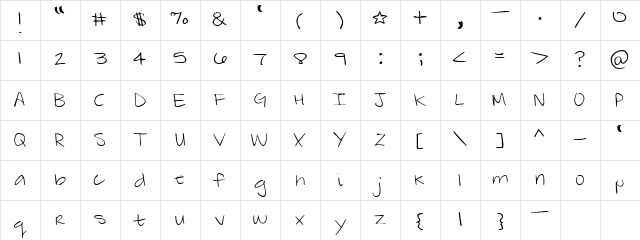
ZebraFlames Light Regular
Design Context for ZebraFlames Light Typeface
ZebraFlames Light takes a measured approach to typography — its balanced proportions and neutral character make it a reliable workhorse for both digital and print work. The delicate stroke weight brings airiness and refinement to layouts.